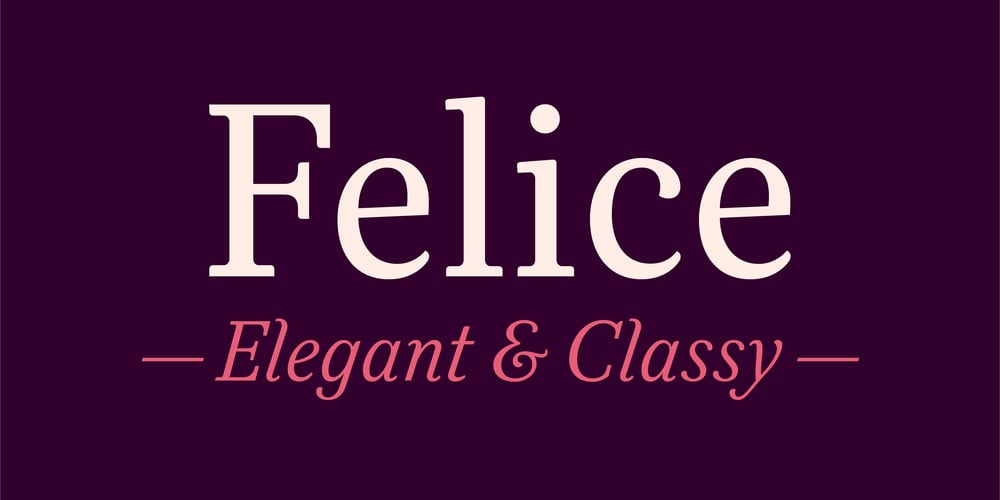
Felice Font Family was designed by Nico Inosanto and published by Nootype. Felice contains 10 styles and family package options. Felice is an elegant serif font family. The humanistic touch gives a warm aspect to this complete text font. Those italics are perfect to give a refined look to text. Felice consists in a 10 styles family, from Light to Black with their italics. Each font includes Small Caps, OpenType Features such as Proportional Figure, Tabular Figures, Numerators, Superscript, Denominators, Scientific Inferiors, Subscript, Ordinals, Fractions and many ligatures. The ligatures are a good feature to make an original and creative layout. The range of styles provides flexibility for text and title.Felice family supports Latin and Cyrillic, all these languages are covered:Latin language support:Afar, Afrikaans, Albanian, Asturian, Azeri, Basque, Bosnian, Breton, Bulgarian, Catalan, Cornish, Corsican, Croatian, Czech, Danish, Dutch, English, Esperanto, Estonian, Faroese, Filipino, Finnish, Flemish, French, Frisian, Friulian, Gaelic, Galician, German, Greenlandic, Hungarian, Icelandic, Indonesian, Irish, Italian, Kurdish, Latin, Latvian, Lithuanian, Luxembourgish, Malagasy, Malay, Maltese, Maori, Moldavian, Norwegian, Occitan, Polish, Portuguese, Provençal, Romanian, Romansch, Saami, Samoan, Scots, Scottish, Serbian, Slovak, Slovenian, Spanish, Swahili, Swedish, Tagalog, Turkish, Walloon, Welsh, WolofCyrillic language support:Adyghe, Avar, Belarusian, Bulgarian, Buryat, Chechen, Erzya, Ingush, Kabardian, Kalmyk, Karachay-Balkar, Karakalpak, Kazakh, Komi, Kyrgyz, Lak, Macedonian, Moldovan, Mongol, Permyak, Russian, Rusyn, Serbian, Tatar, Tofa, Tuvan, Ukrainian, Uzbek